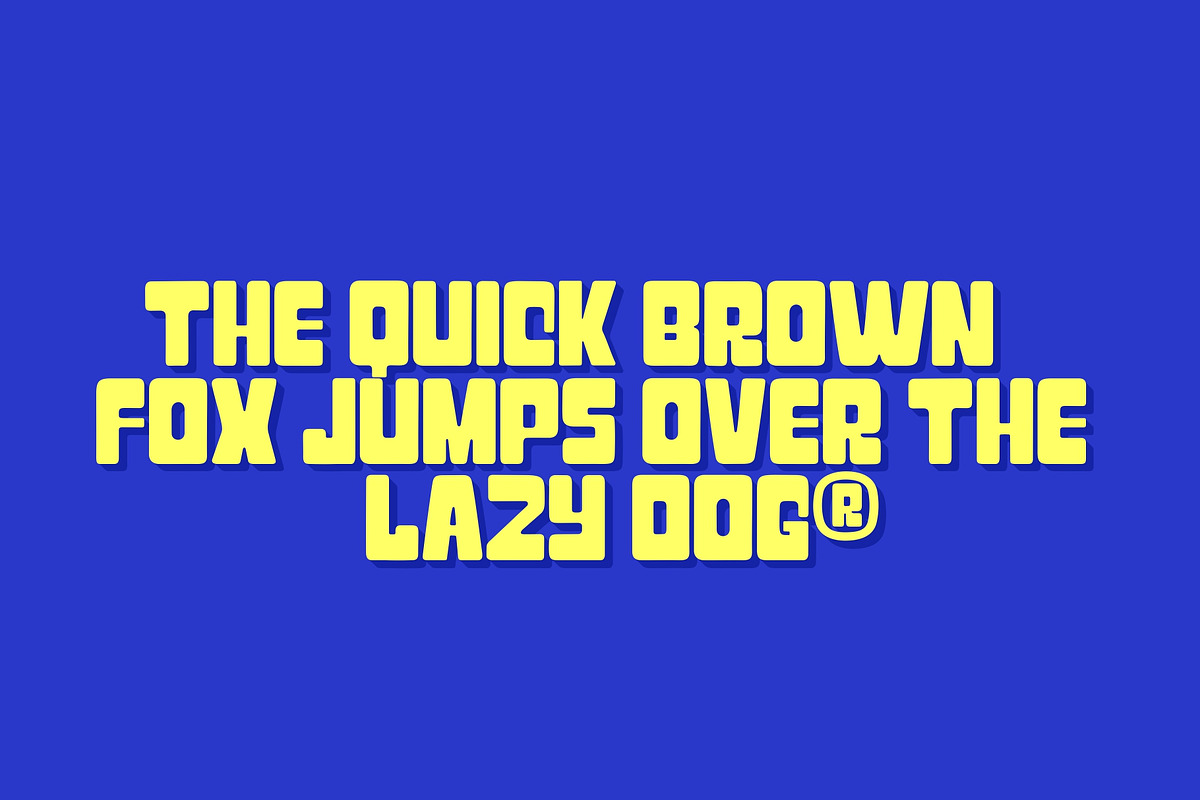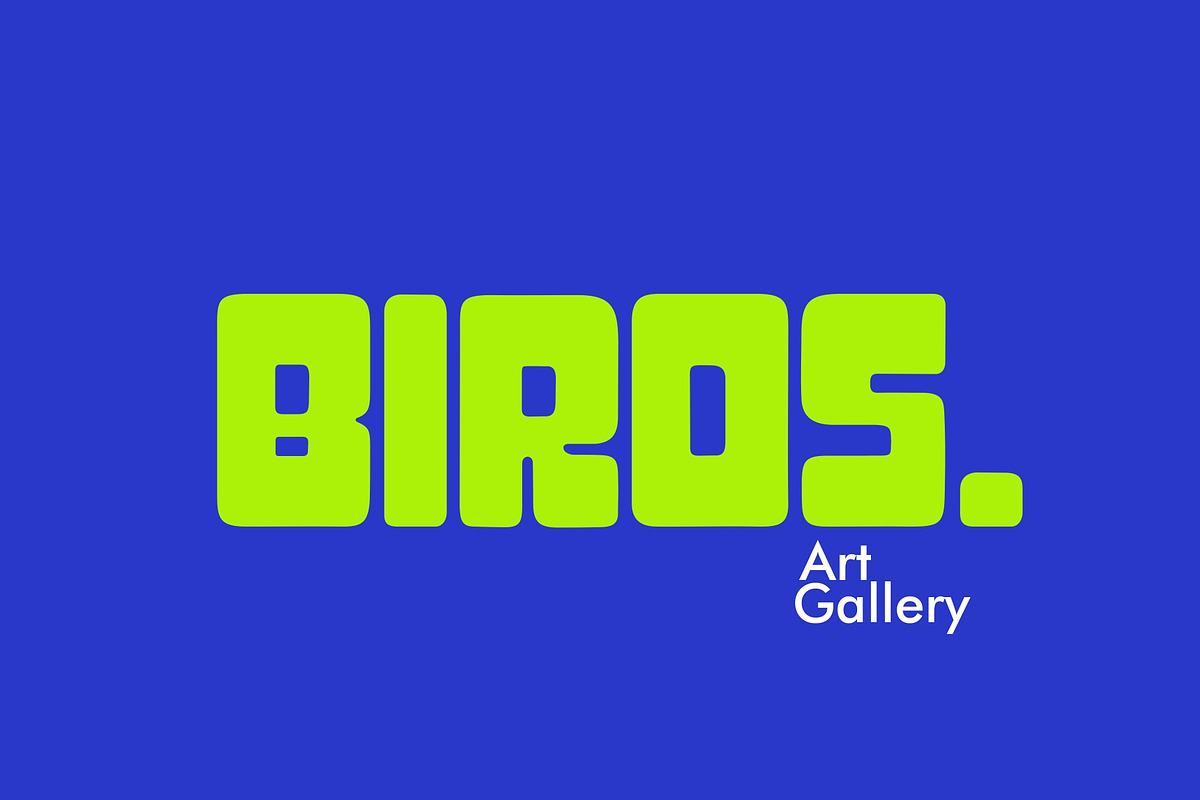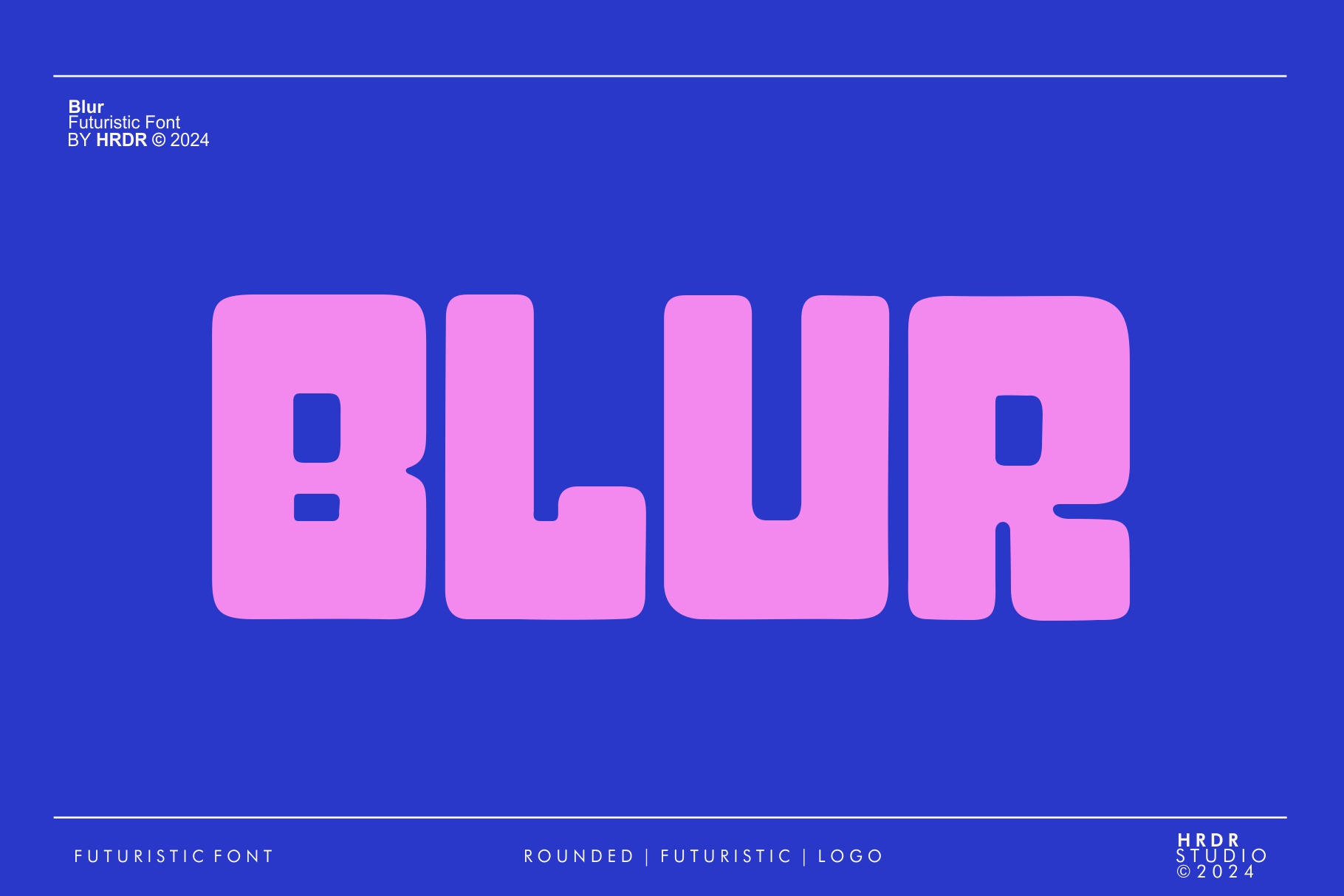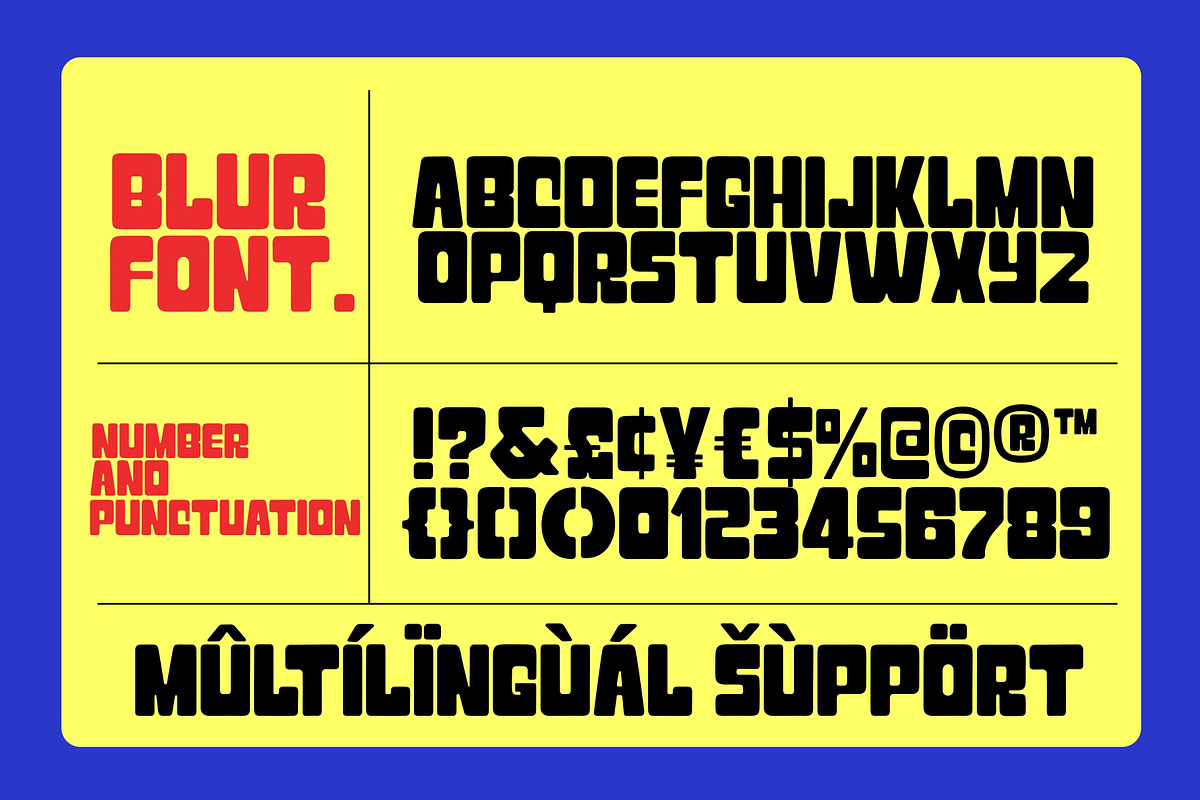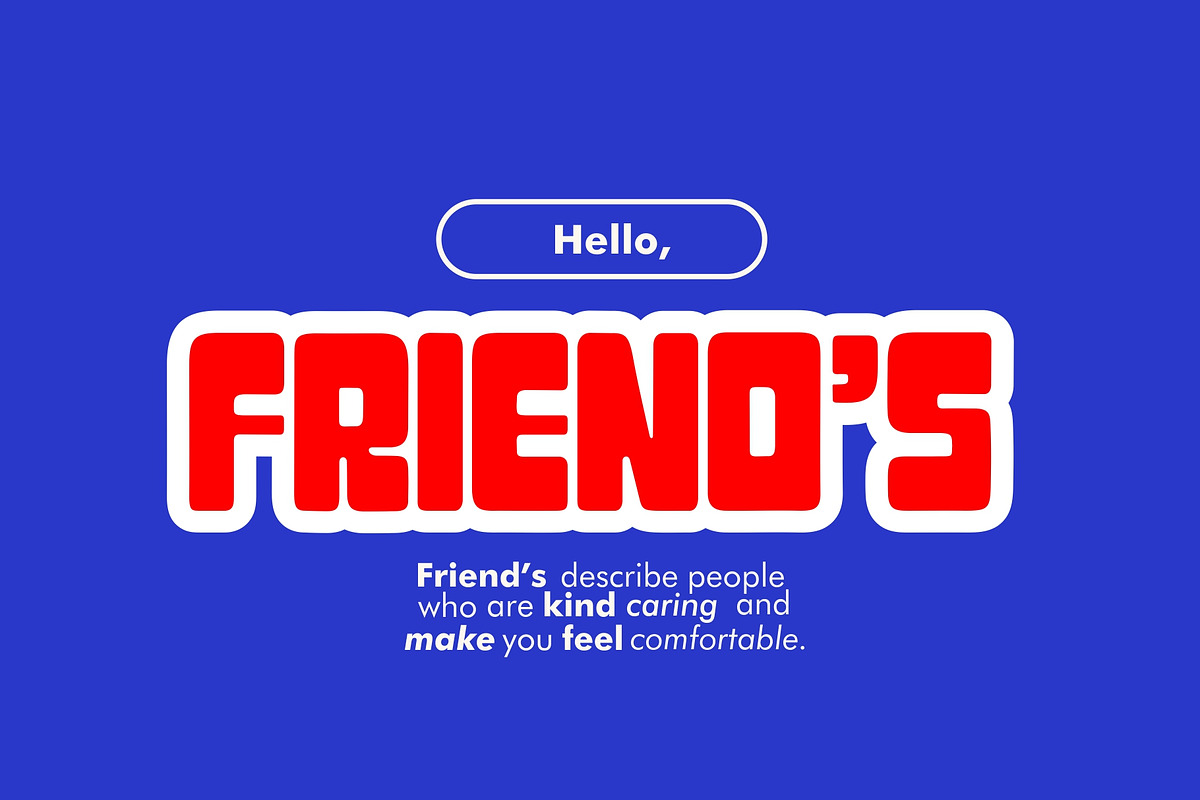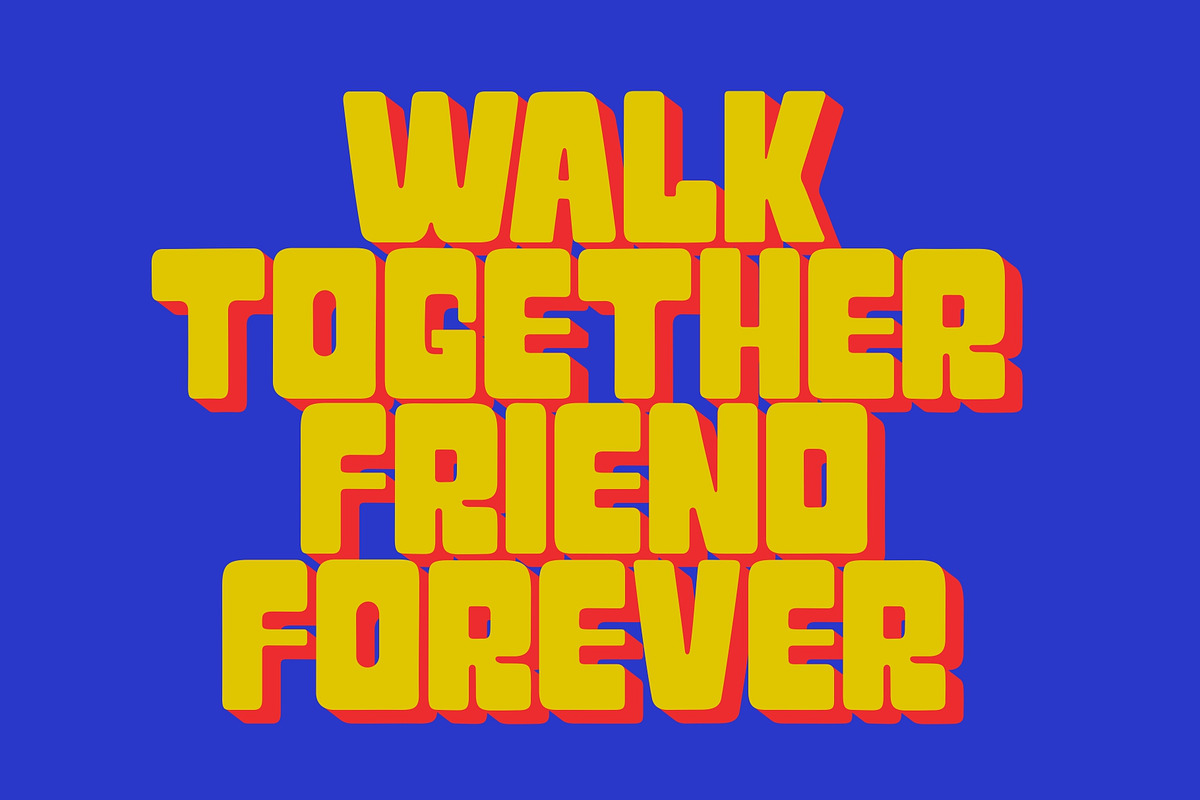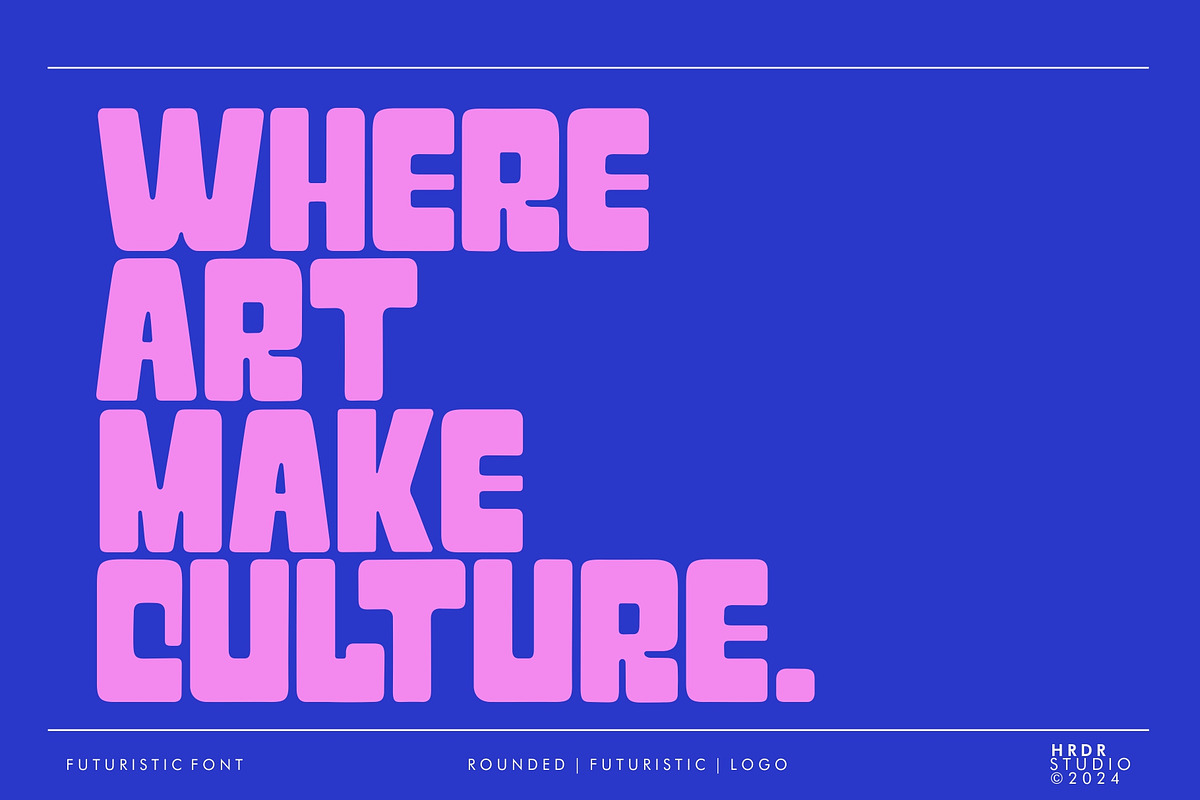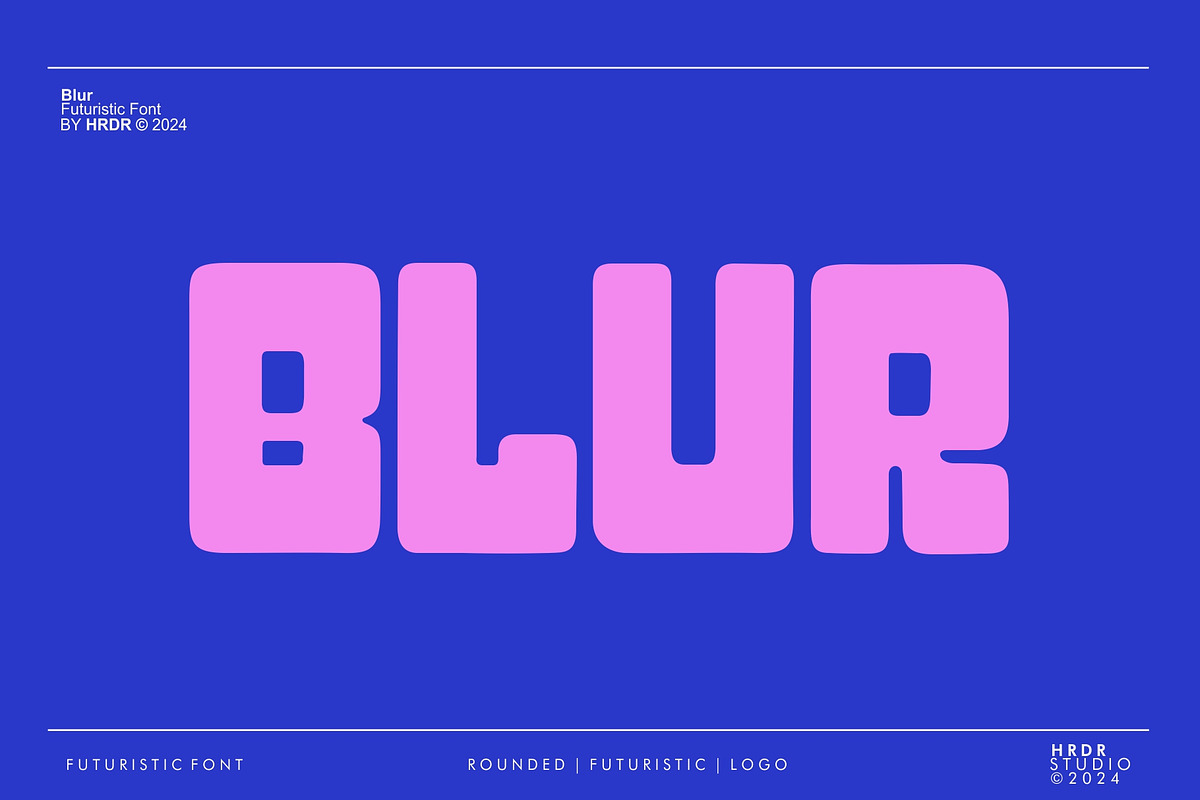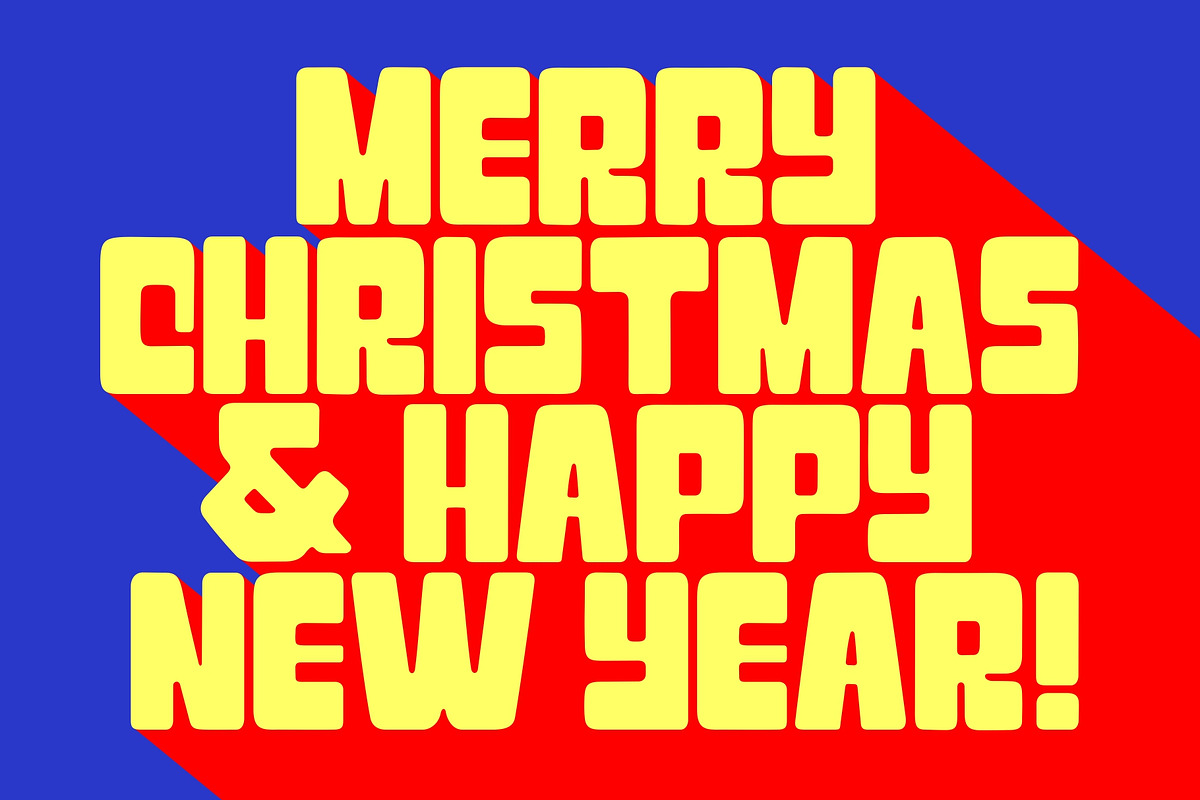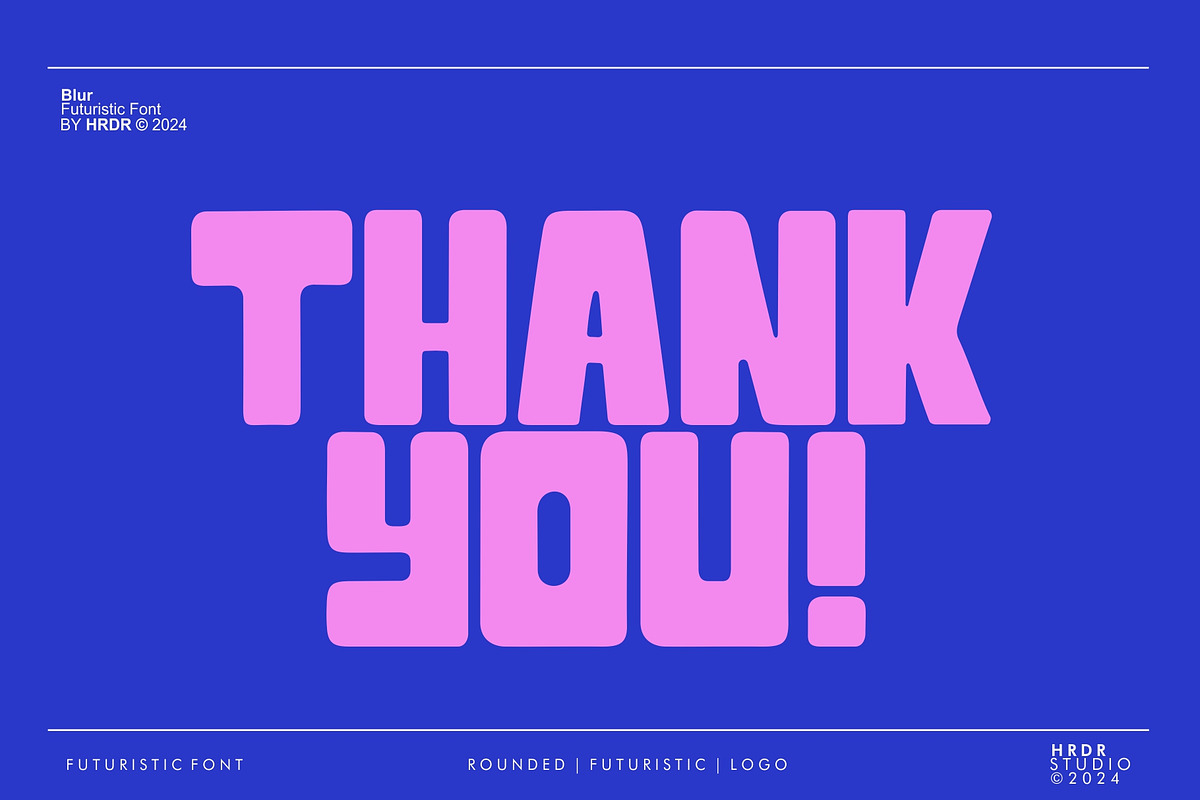
Blur - Futuristic Display Font
Blur is a futuristic font with bold & strong style , chunky design adds a unique flair to any project, making it an excellent addition to your font library. It is great for the use as headlines in magazines, logotypes on posters, game titles, movies or music packaging.
- numeric & Multilingual support